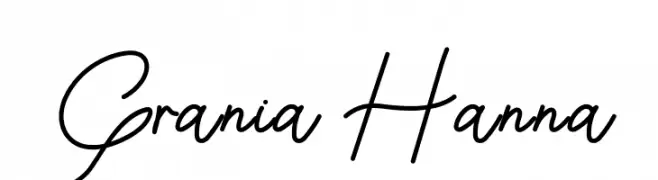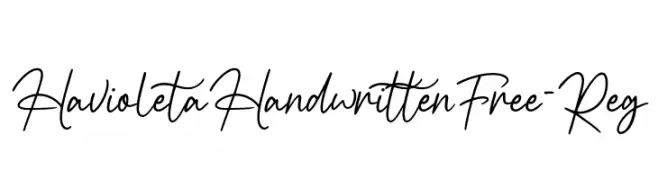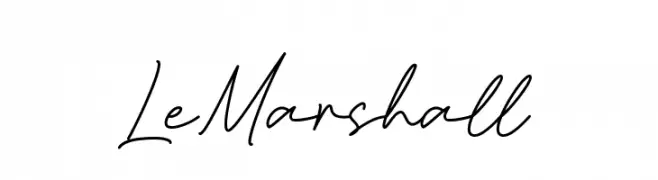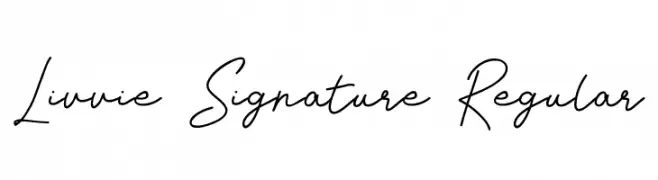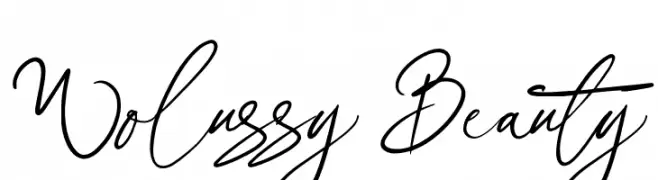
A flowing, elegant script font with a natural handwritten style.
A fluid, cursive font with a natural, handwritten style.
A dynamic, cursive script font with a natural handwriting style.
A fluid, cursive font with a natural handwritten style and medium contrast.
An elegant, flowing script font with a natural handwriting style.
A fluid, cursive handwritten font with a natural and elegant style.
A dynamic and elegant handwritten font with fluid strokes and natural flow.
A graceful and flowing script font with a natural handwriting style.
A dynamic and expressive handwritten font with fluid strokes and natural flow.
A lively handwritten font with fluid, natural strokes and a playful aesthetic.